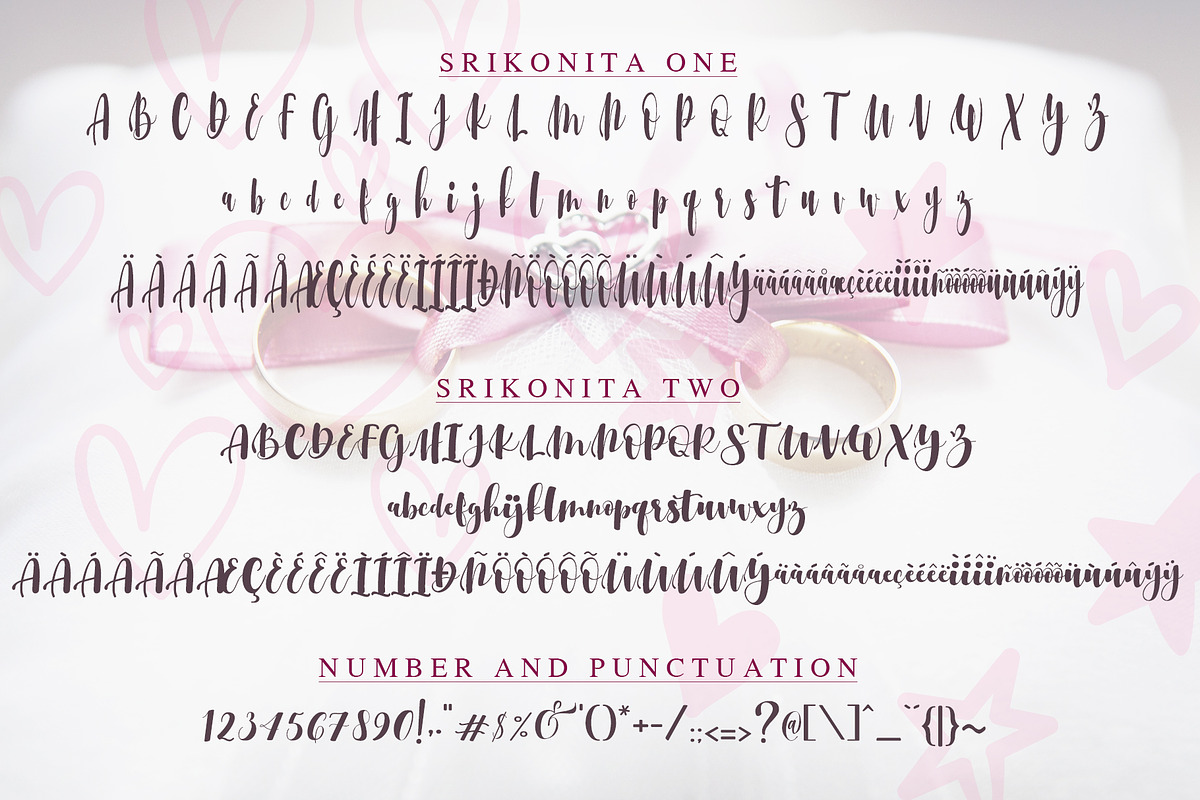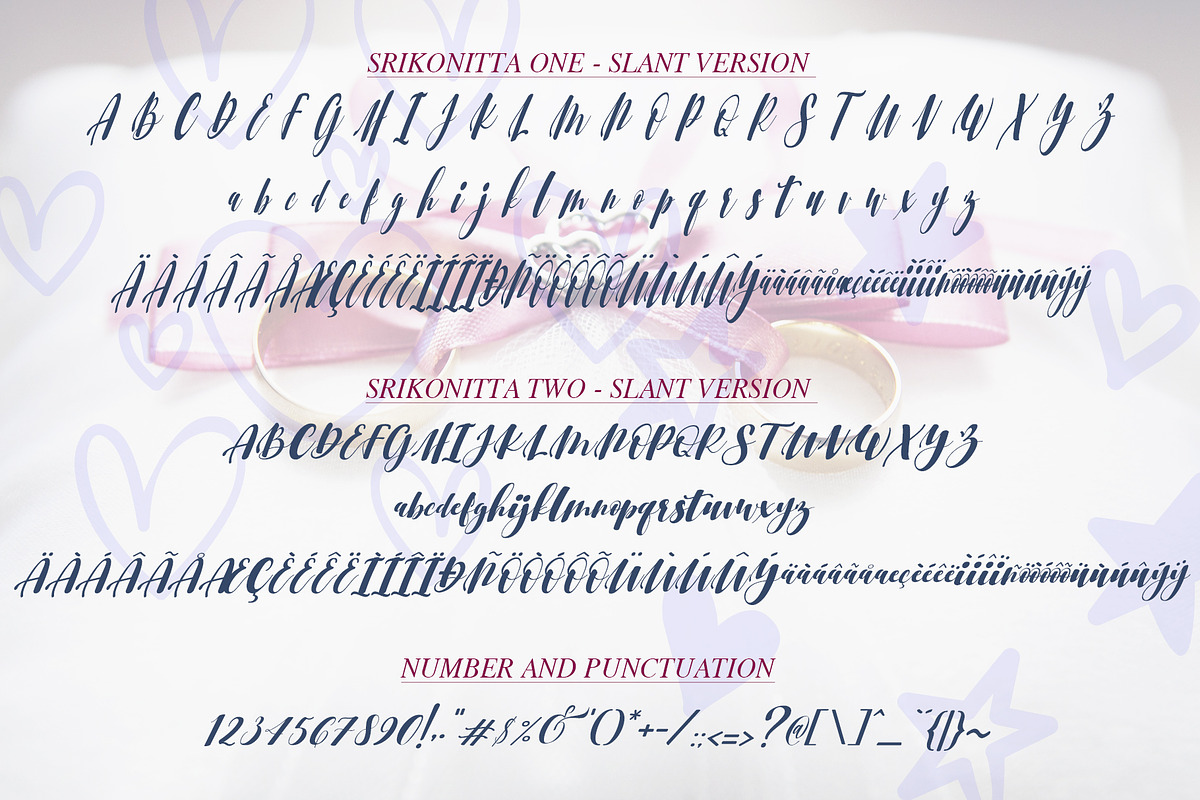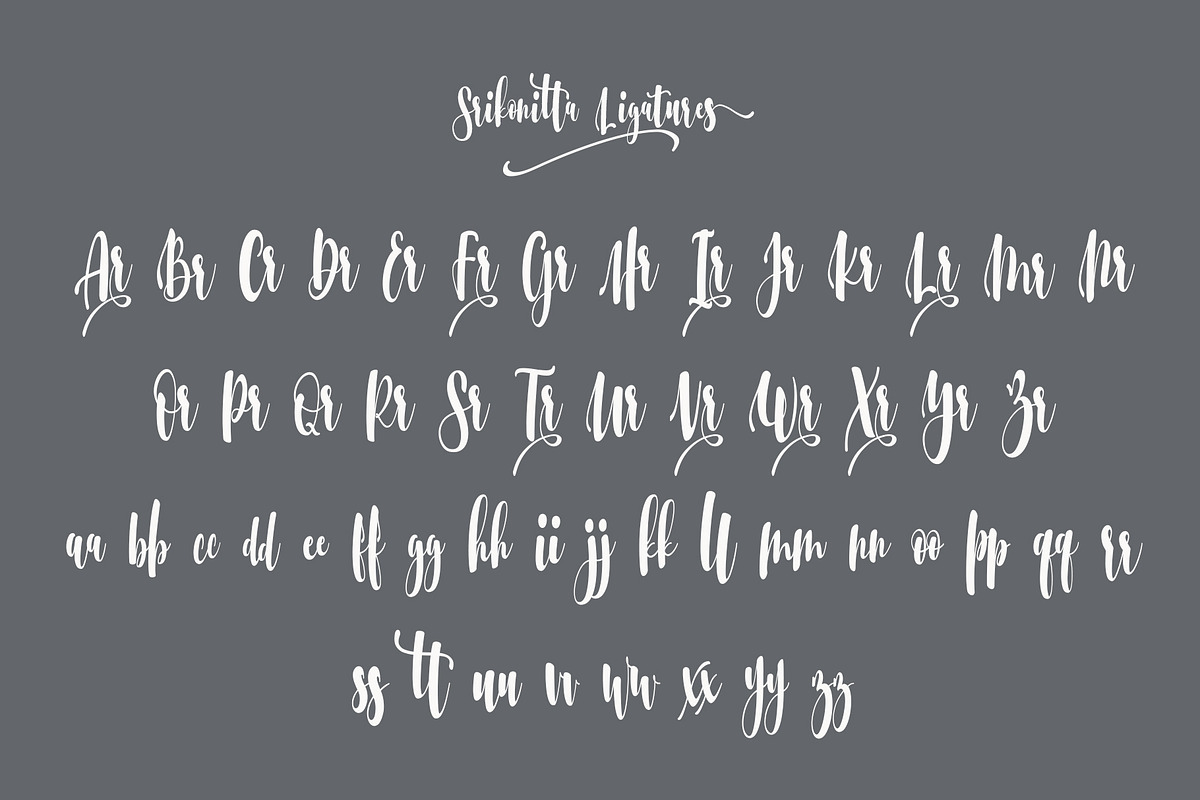
Srikonitta Script + Free Vectors
Srikonitta is beautiful script made by depth love. Srikonitta with natural handwriting touch is suitable for you who needs a typeface for Headline, Apparel, Invitation, Branding, Wedding, Logo Design, Lettering, Logotype, Clothing, Poster, Magazine and other design project.